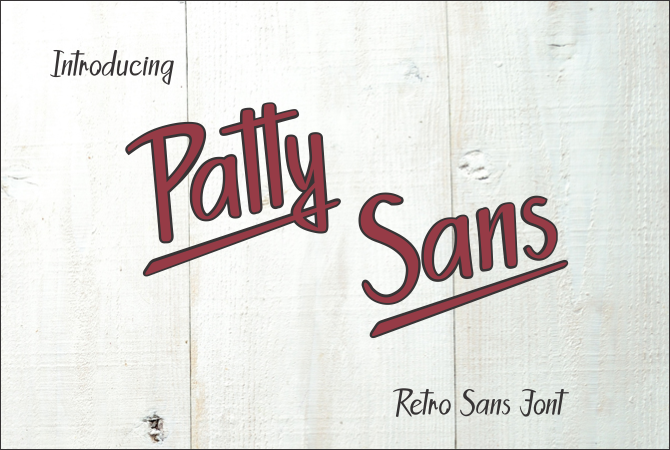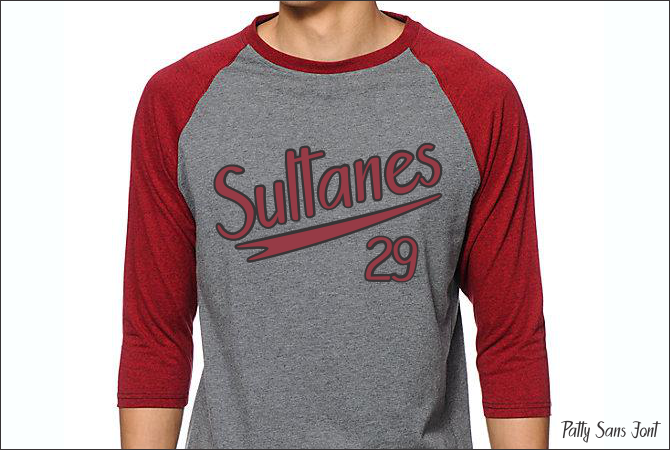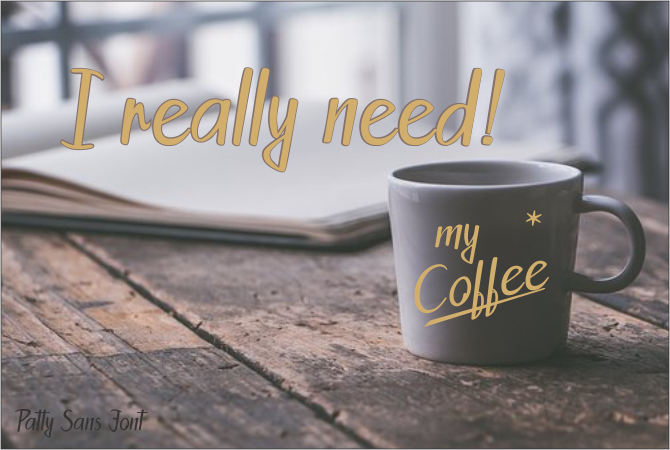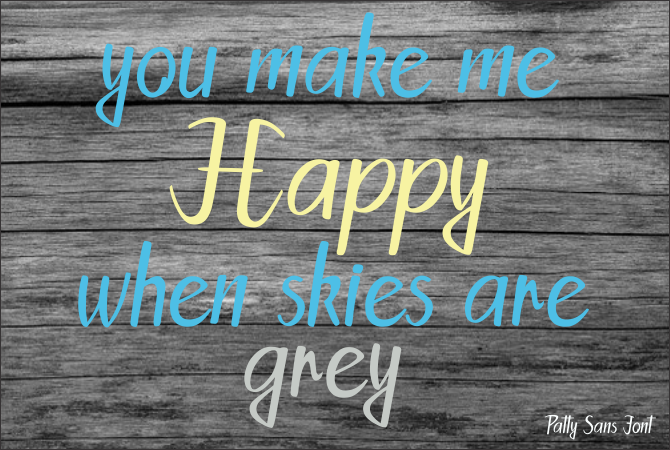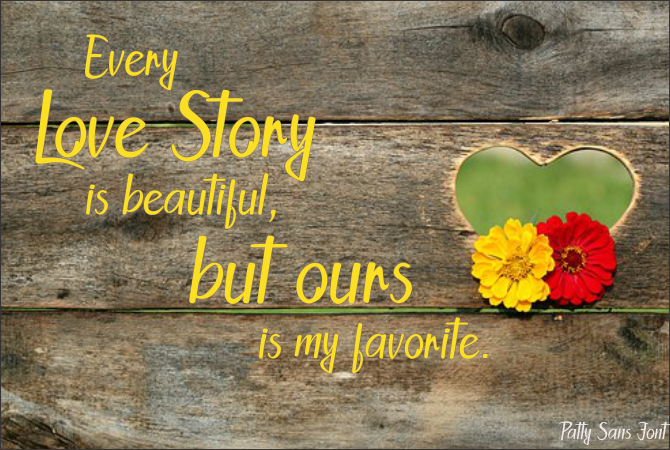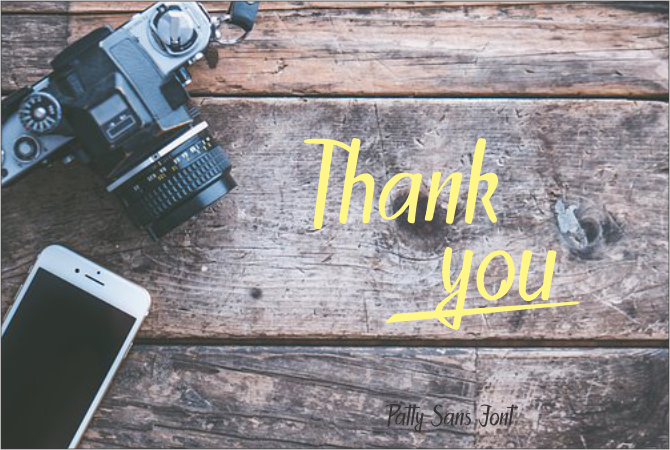
Patty Sans Font
About Patty Sans Font
Patty Sans is a formidable and legible typeface with retro style, perfect for adding some vintage charm to your designs and projects.